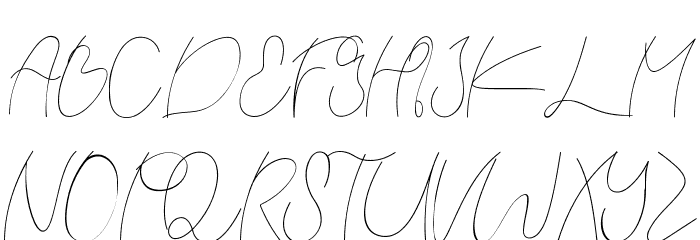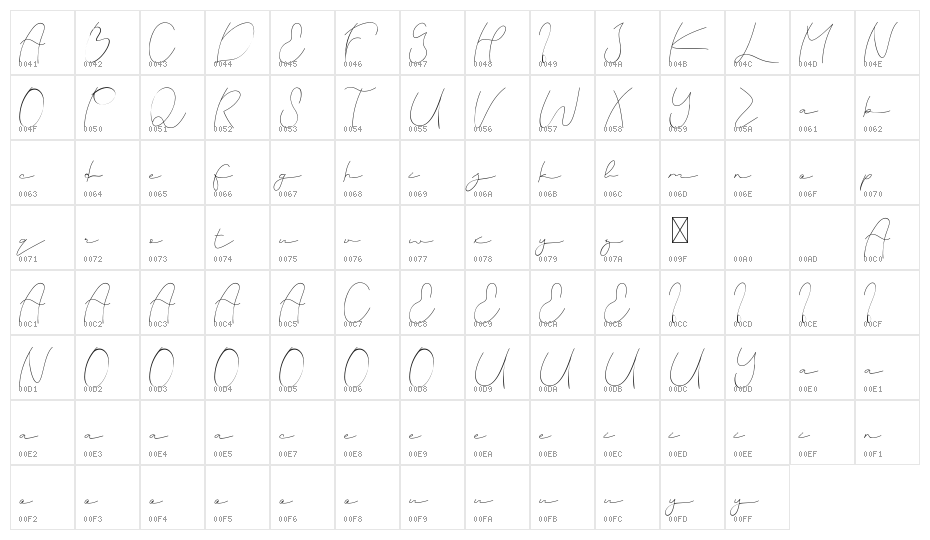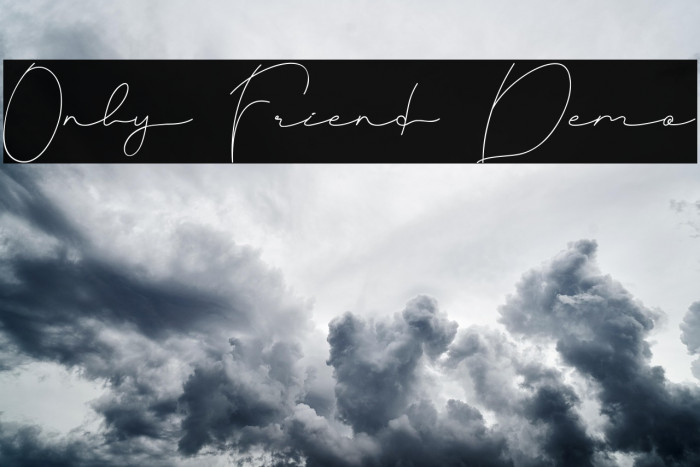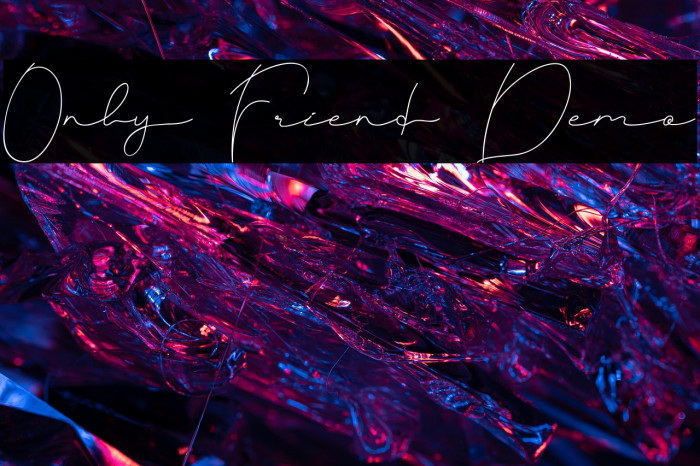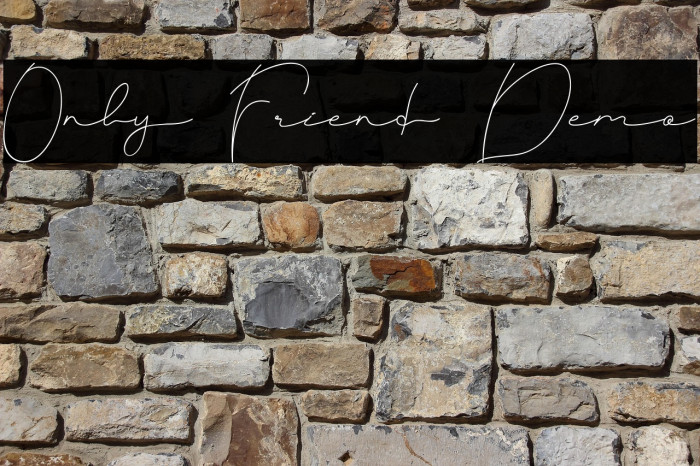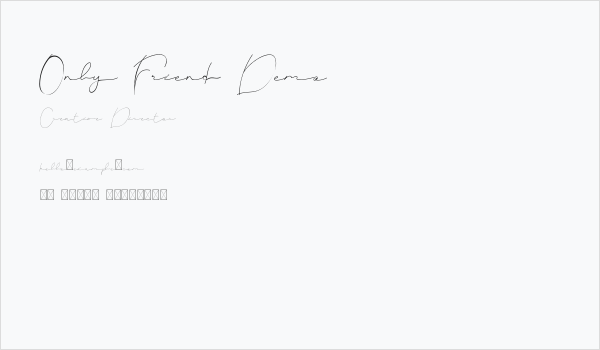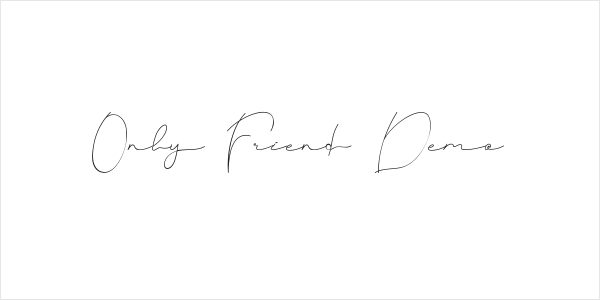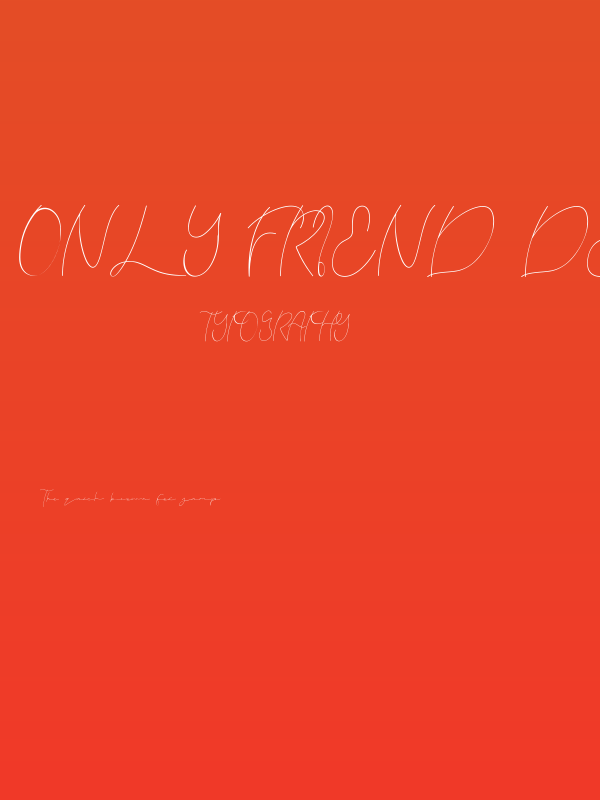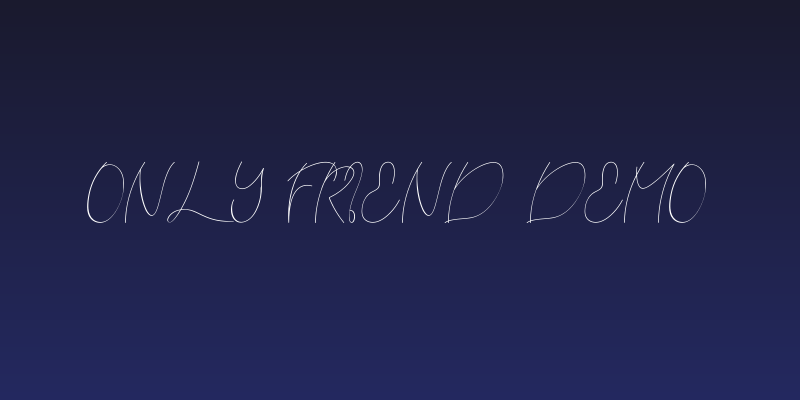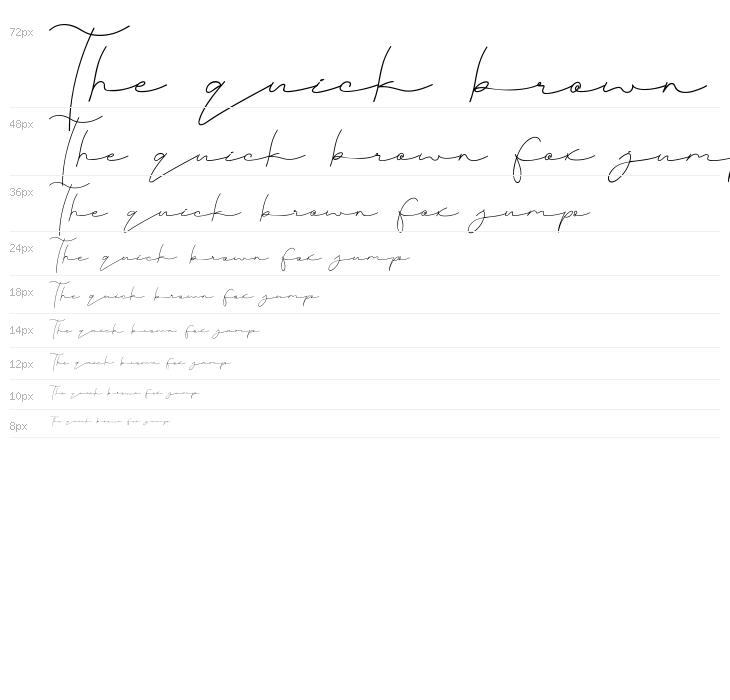
Only Friend Demo Font
Only Friend Demo Description
This font features an elegant and flowing script style, characterized by its delicate, thin strokes and cursive letterforms. The uppercase and lowercase letters are seamlessly connected, creating a fluid and continuous appearance. The design exudes a sense of sophistication and grace, making it ideal for projects that require a touch of elegance. The characters are slightly slanted, enhancing the handwritten feel, while maintaining readability. The font's airy and open structure allows for a light and breezy aesthetic, suitable for both formal and informal applications.
| Use Case | Logos, Invitations, Personal stationery |
| Proposed Projects | Wedding invitations, elegant branding, personal stationery, and romantic quotes. |